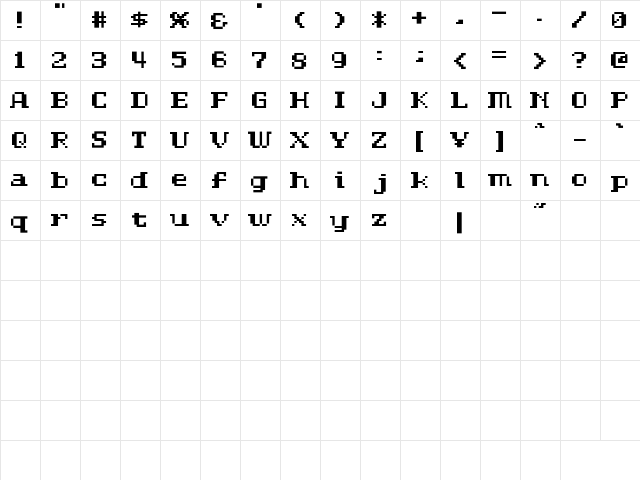
D3 LiteBitMapism Bold-Selif Regular Font Preview
D3 LiteBitMapism Bold-Selif Regular
D3 LiteBitMapism Bold-Selif Regular Font Details
Design Context for D3 LiteBitMapism Bold-Selif Typeface
D3 LiteBitMapism Bold-Selif is rooted in pixel-grid construction, making it a natural fit for game UI, retro computing aesthetics, and digital nostalgia projects.
A natural choice for retro game titles, chiptune music branding, 8-bit UI, and digital nostalgia projects.
Pro Tip: Pair D3 LiteBitMapism Bold-Selif with flat colour palettes and simple geometric UI elements to reinforce its digital aesthetic.